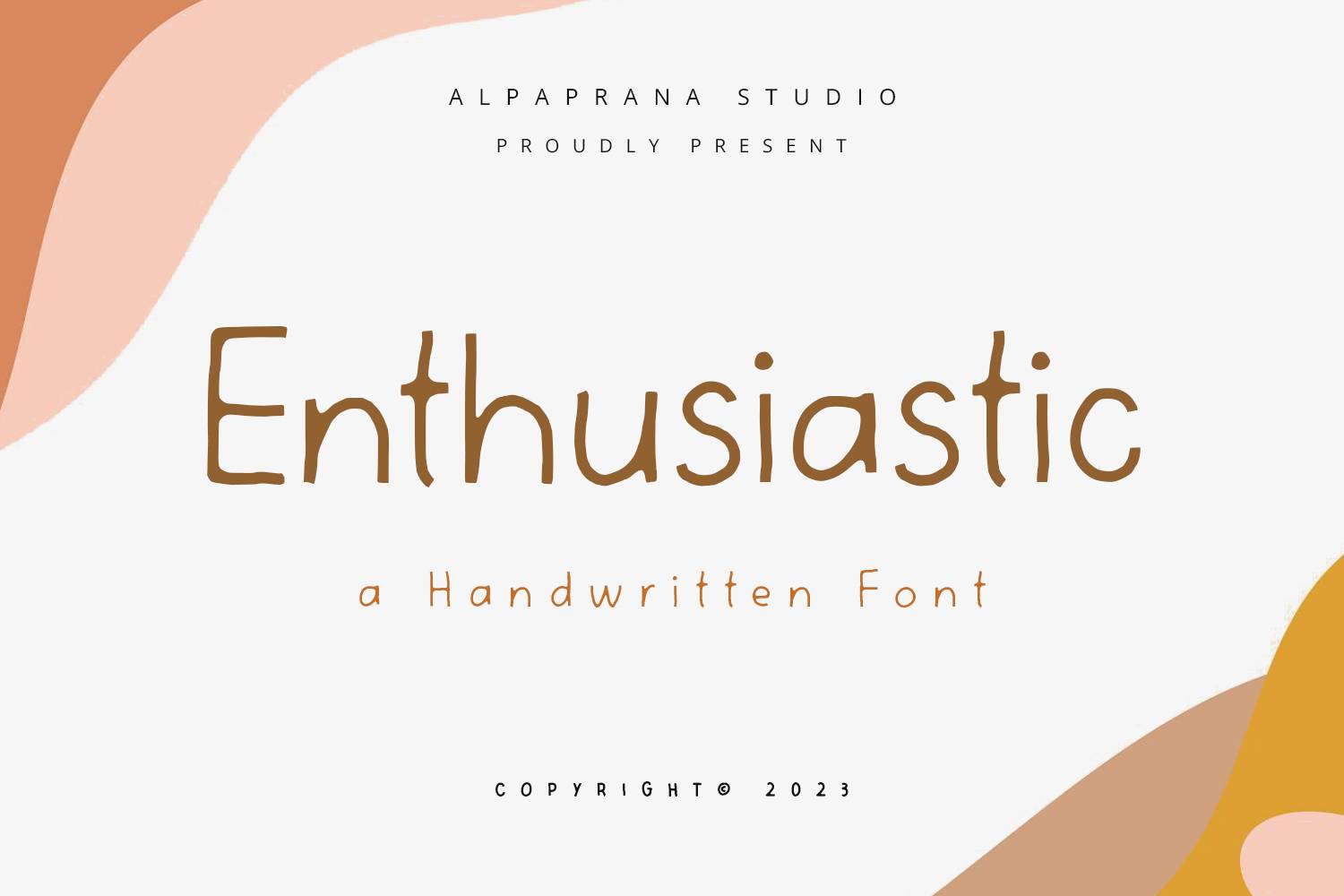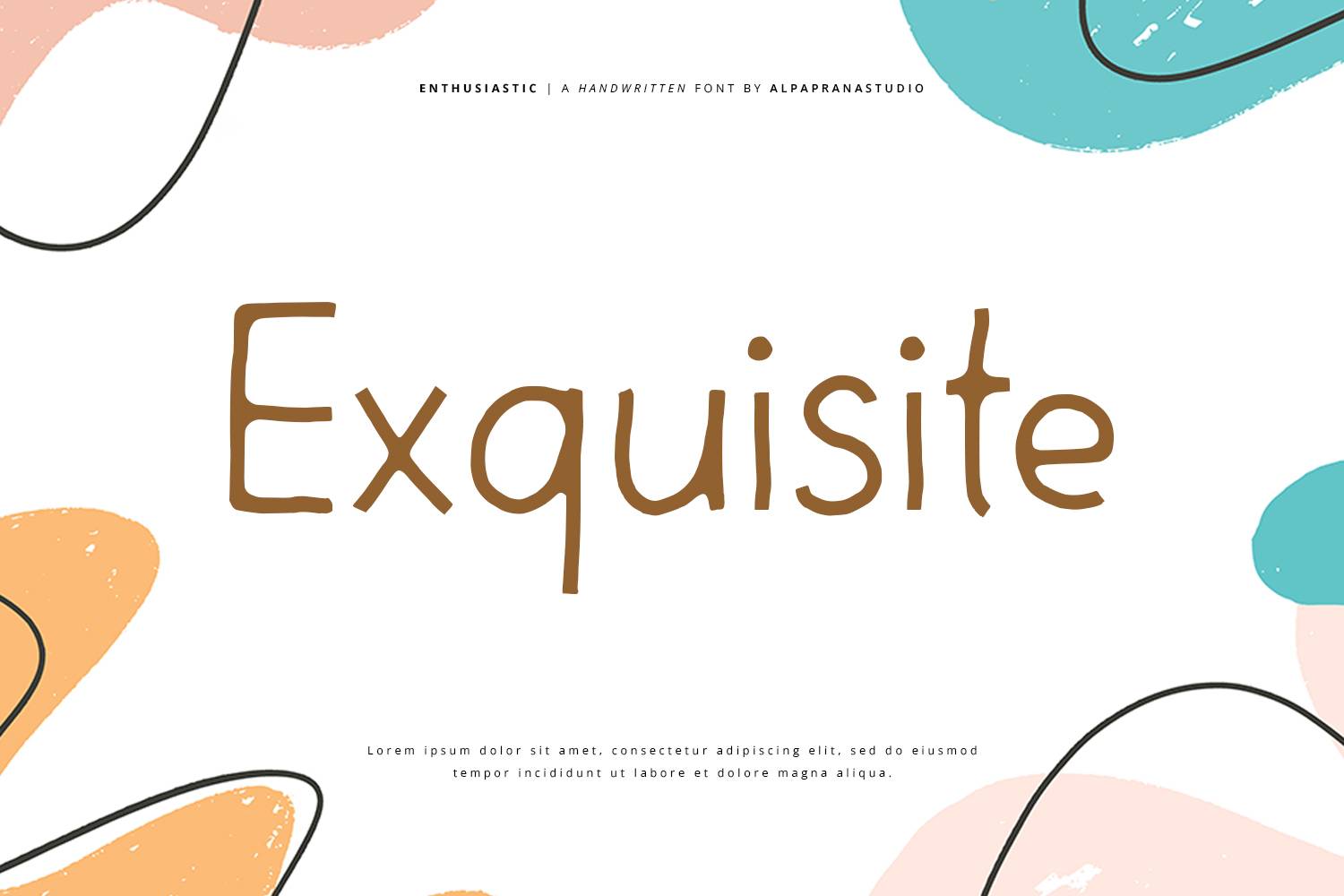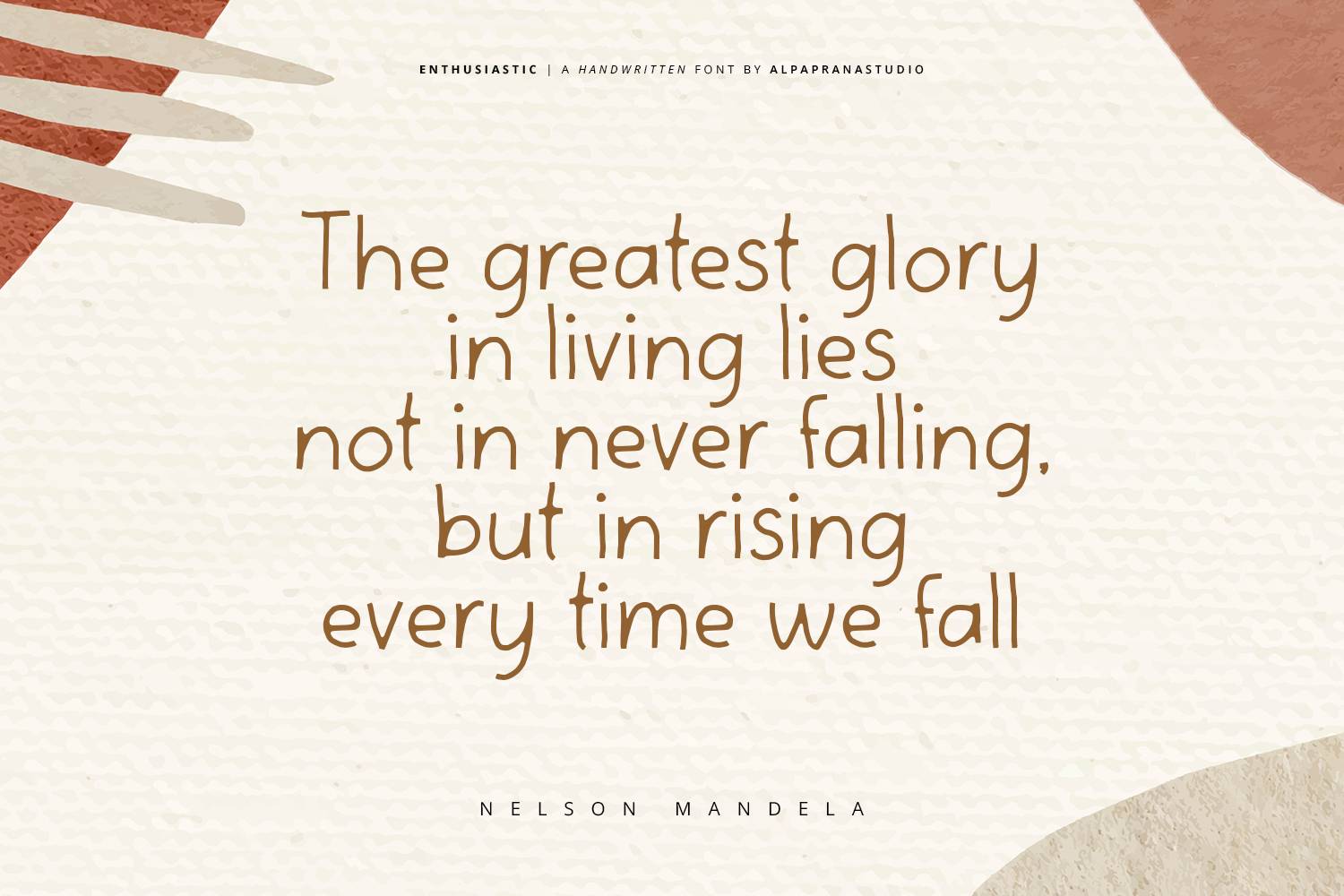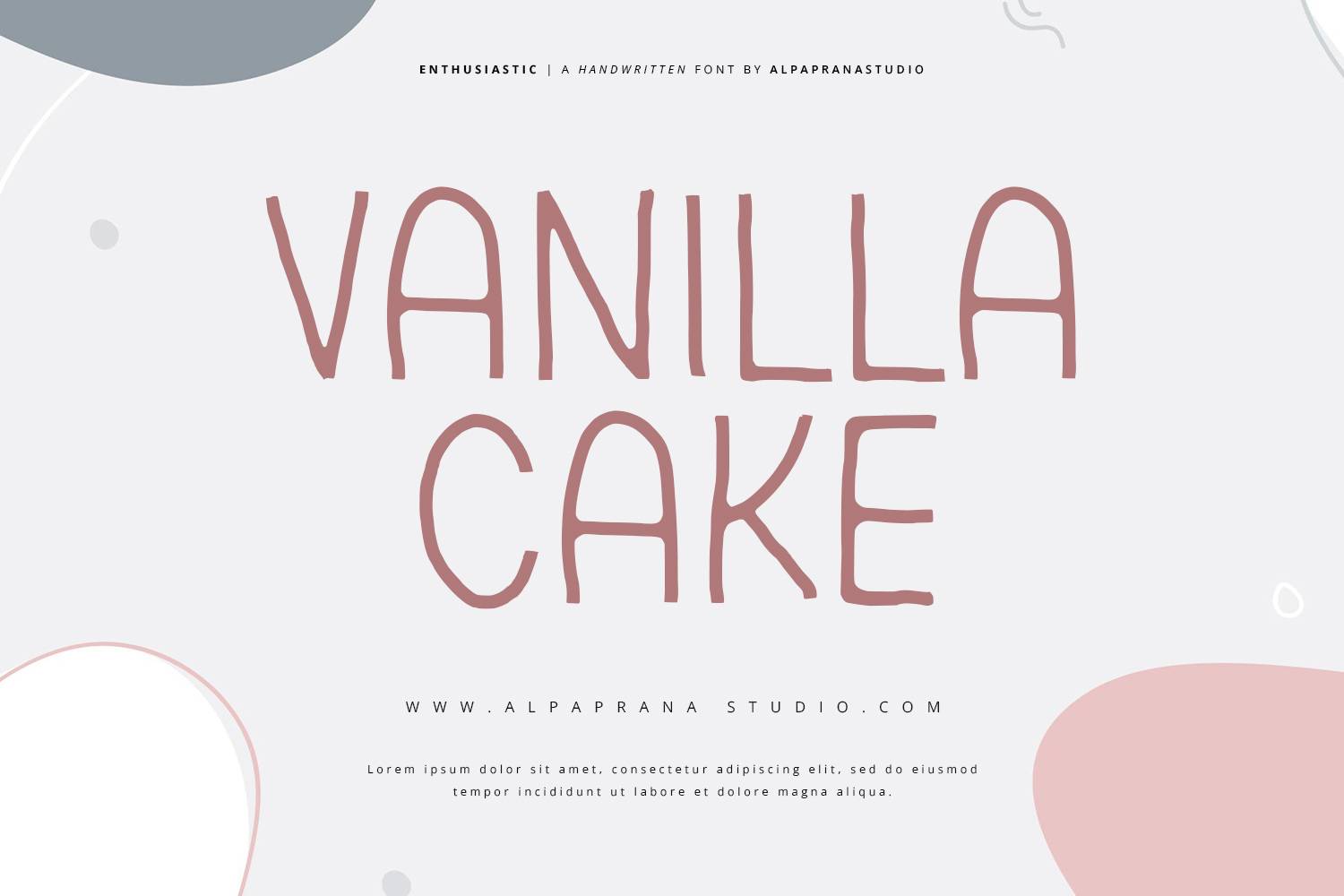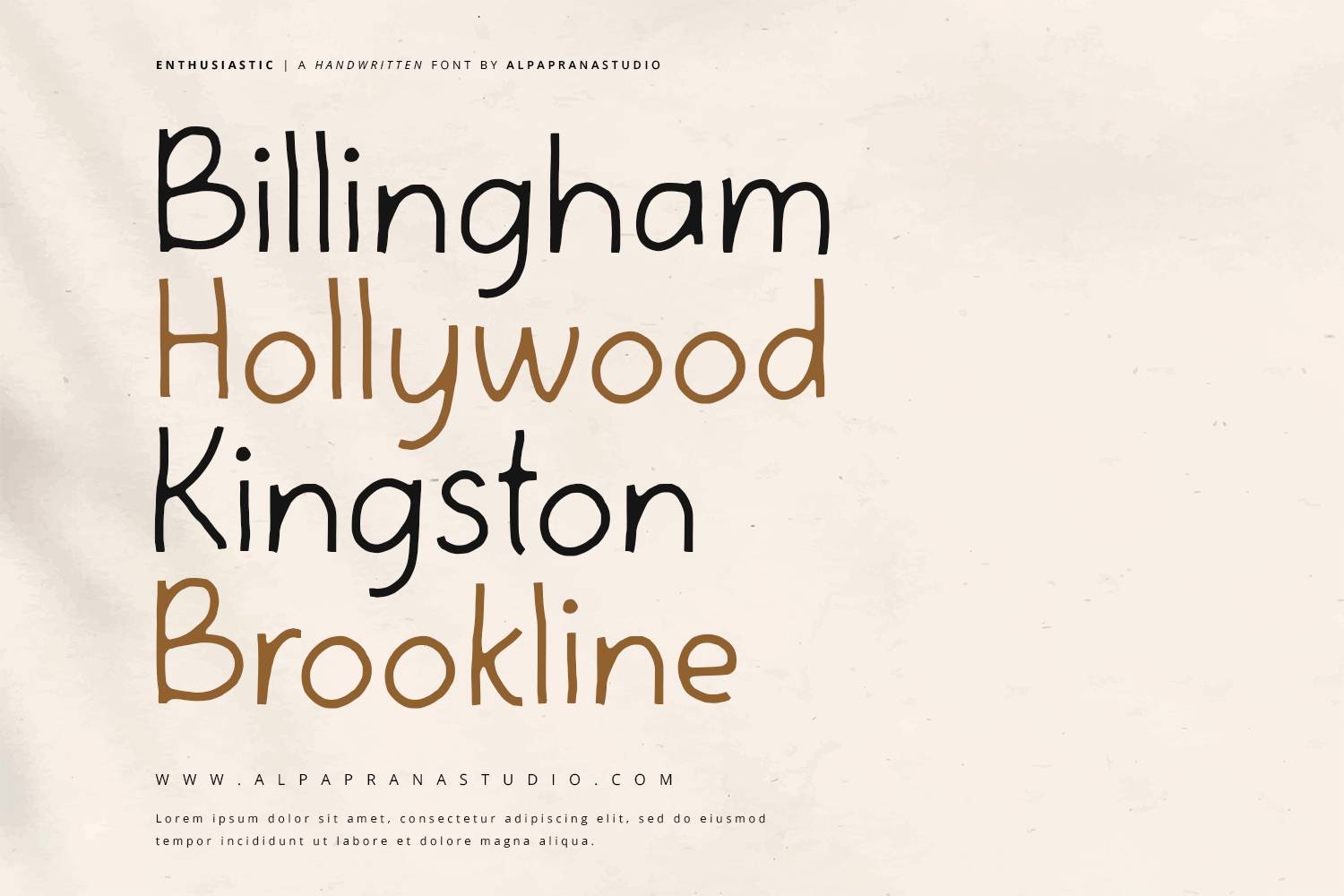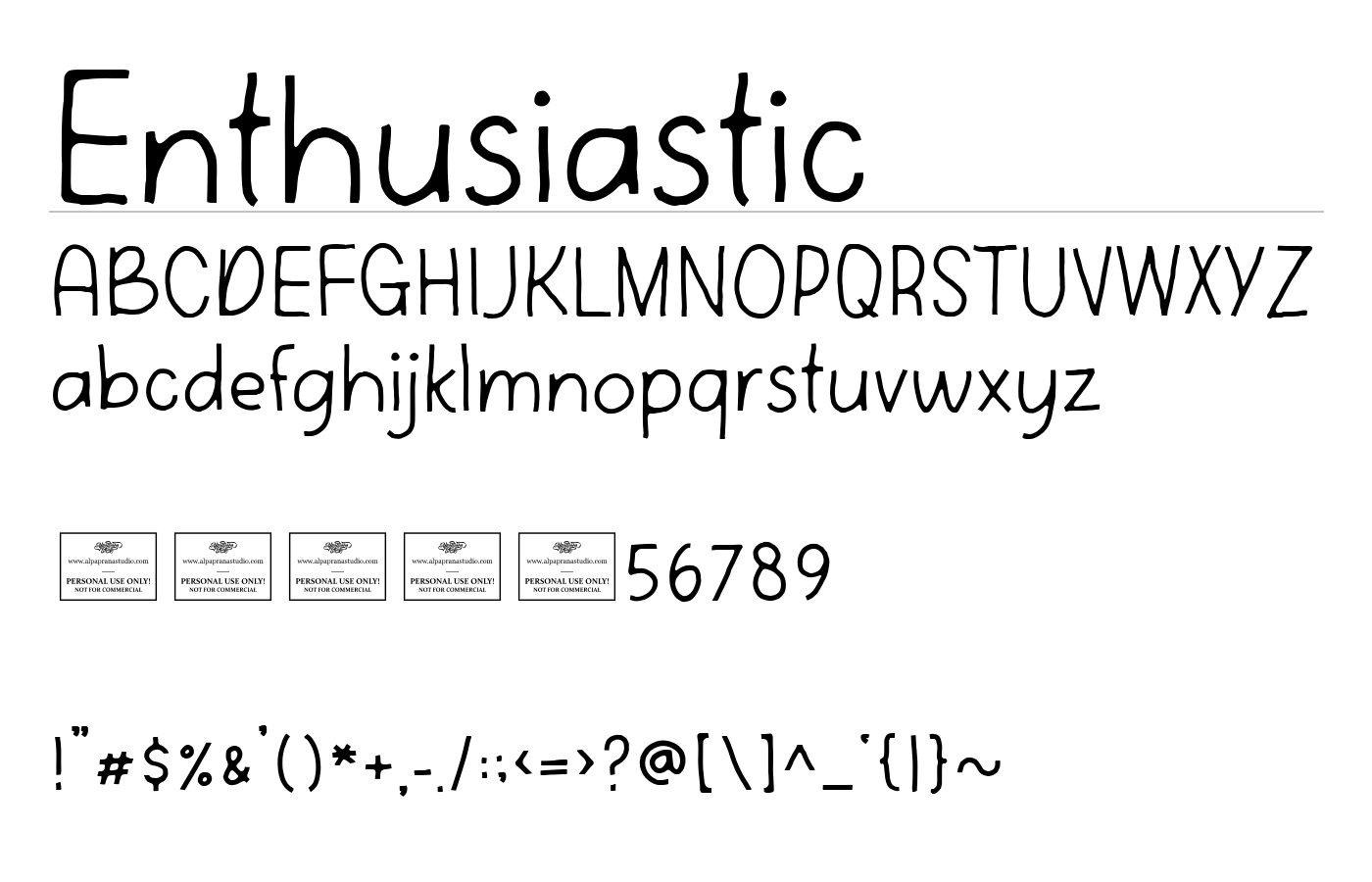
Enthusiastic is a playful and informal sans serif font with a hand-drawn, uneven stroke style that gives it a lively and personal feel. Its narrow width and varied letter heights create a casual, approachable look, making it perfect for fun and creative projects like children’s books, invitations, and casual branding. This font’s friendly personality adds warmth and energy, ideal for designs that want to communicate enthusiasm and a relaxed, joyful vibe.
Enthusiastic Font
About Enthusiastic Font